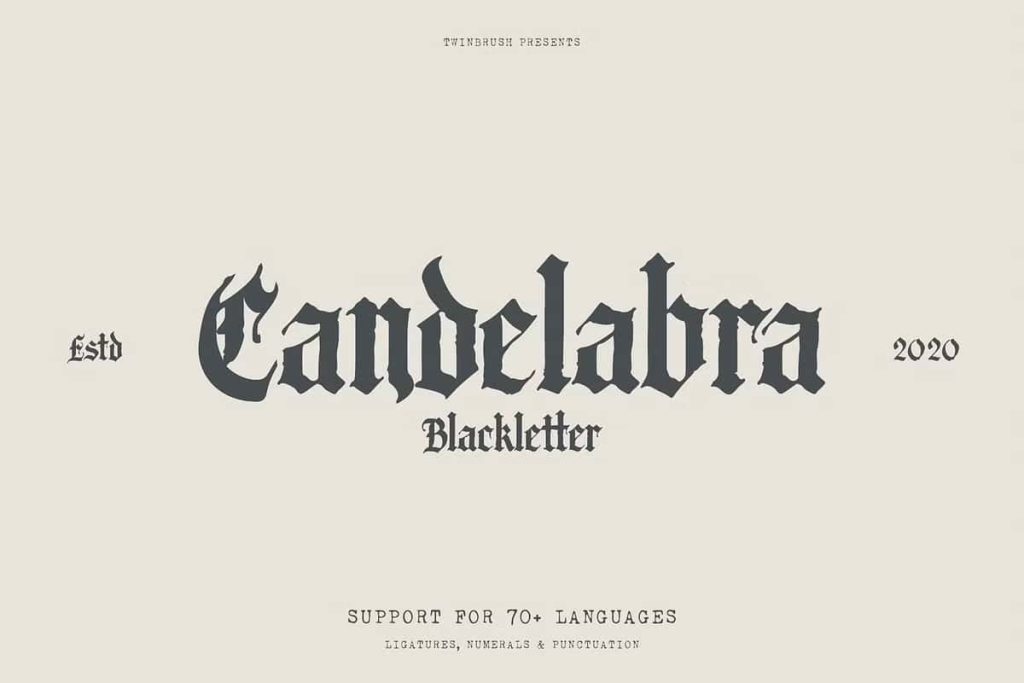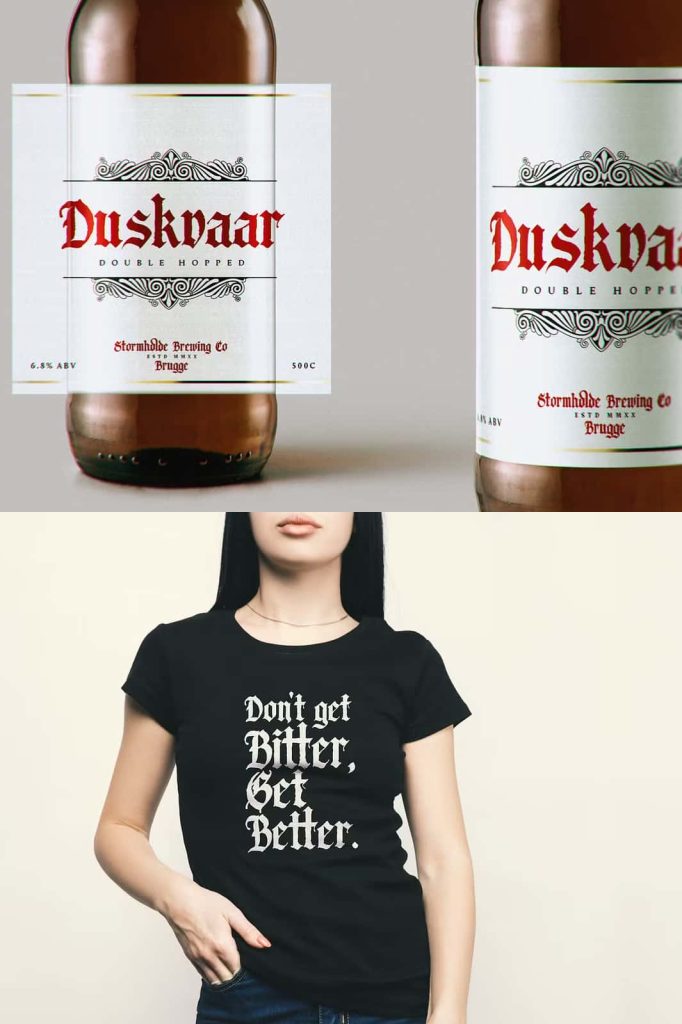
Candelabra Gothic Blackletter Font
Candelabra is a gothic blackletter font that channels the power, mystery, and drama of medieval calligraphy. It captures the spirit of ancient manuscripts while delivering the bold intensity modern designers demand. With sharp angles, ornate strokes, and commanding letterforms, Candelabra transforms ordinary typography into a statement of strength and character.
This personality-rich typeface draws inspiration from historic script traditions and reinterprets them for contemporary creative work. Whether you design for print or digital media, Candelabra helps you build striking visuals that radiate authority and mysticism.
Inspired by Medieval Mysticism
Candelabra embraces the timeless beauty of gothic blackletter style. Its dramatic forms echo the hand-lettered scripts once found in illuminated manuscripts and cathedral engravings. Every stroke reflects tradition, craftsmanship, and heritage.
At the same time, this font does not remain trapped in the past. It integrates clean structure and refined balance to ensure legibility and versatility. Designers can confidently use Candelabra in modern layouts without sacrificing its historical atmosphere.
Authentic Blackletter Character
The sharp serifs, angular curves, and intricate detailing give Candelabra its unmistakable identity. These elements create depth and visual rhythm across every word. The bold construction allows headlines and logos to command attention instantly.
Use this font when you want to evoke power, mystery, rebellion, or tradition. It communicates intensity without needing excessive decoration.
Perfect for Tattoo Studios and Band Logos
Candelabra Gothic Blackletter Font thrives in bold and expressive industries. Tattoo studios can use it to craft memorable signage, flash sheets, merchandise, and promotional materials. Its gothic influence aligns naturally with tattoo culture and alternative aesthetics.
Musicians and bands can leverage its dramatic style for logos, album covers, and tour posters. The font projects confidence and edge, making it ideal for metal, rock, punk, and experimental genres. It strengthens brand recognition by creating a powerful visual identity.
Stand Out in Album Art and Merchandise
Album artwork demands typography that feels iconic. Candelabra delivers that impact with strong silhouettes and detailed forms. It enhances vinyl covers, CD packaging, streaming graphics, and limited-edition merchandise.
Pair it with dark imagery, textured backgrounds, or minimalist layouts to create striking contrast. Its versatility allows both complex and clean compositions to shine.
Ideal for Fashion Apparel and Branding
Fashion brands constantly seek typography that expresses individuality. Candelabra supports streetwear labels, high-fashion collections, and boutique apparel lines with equal strength. Use it on clothing tags, printed garments, lookbooks, and marketing campaigns.
The font blends historical elegance with contemporary boldness. This duality allows designers to experiment with both vintage-inspired themes and cutting-edge street style visuals.
Elevate Packaging and Product Design
Packaging design benefits from strong typographic identity. Candelabra adds depth and sophistication to product labels, specialty goods, craft beverages, and limited-edition releases. Its ornate structure captures attention on shelves and digital storefronts alike.
Designers can apply metallic foils, embossing, or textured finishes to amplify the gothic aesthetic. The result feels premium, artistic, and unforgettable.
Strong Choice for Book Covers and Game Design
Candelabra works exceptionally well in publishing and entertainment industries. Fantasy novels, historical fiction, horror titles, and dark poetry collections gain instant thematic resonance when paired with this blackletter style.
Game designers can use it for titles, promotional artwork, and in-game graphics. It enhances medieval, fantasy, or gothic-themed worlds with authenticity and atmosphere. The font strengthens storytelling by reinforcing the mood visually.
Achieve Historical and Modern Aesthetics
One of Candelabra’s greatest strengths lies in its flexibility. Designers can lean fully into its medieval roots for traditional compositions. Alternatively, they can combine it with minimalist layouts, modern photography, or contemporary color palettes for a bold contrast.
This adaptability allows you to experiment freely while maintaining a cohesive look. Candelabra bridges centuries of design influence and transforms them into a unified visual language.
Why Choose Candelabra Gothic Blackletter Font?
- Authentic medieval-inspired blackletter design
- Strong visual presence for logos and headlines
- Perfect for tattoo studios, bands, and alternative branding
- Ideal for fashion apparel, packaging, and merchandise
- Suitable for book covers, album art, and game design
Candelabra Gothic Blackletter Font delivers intensity, heritage, and modern versatility in one powerful package. It helps designers create bold compositions that feel dramatic, artistic, and unforgettable. Add Candelabra to your collection and craft visuals that command attention with timeless gothic authority.